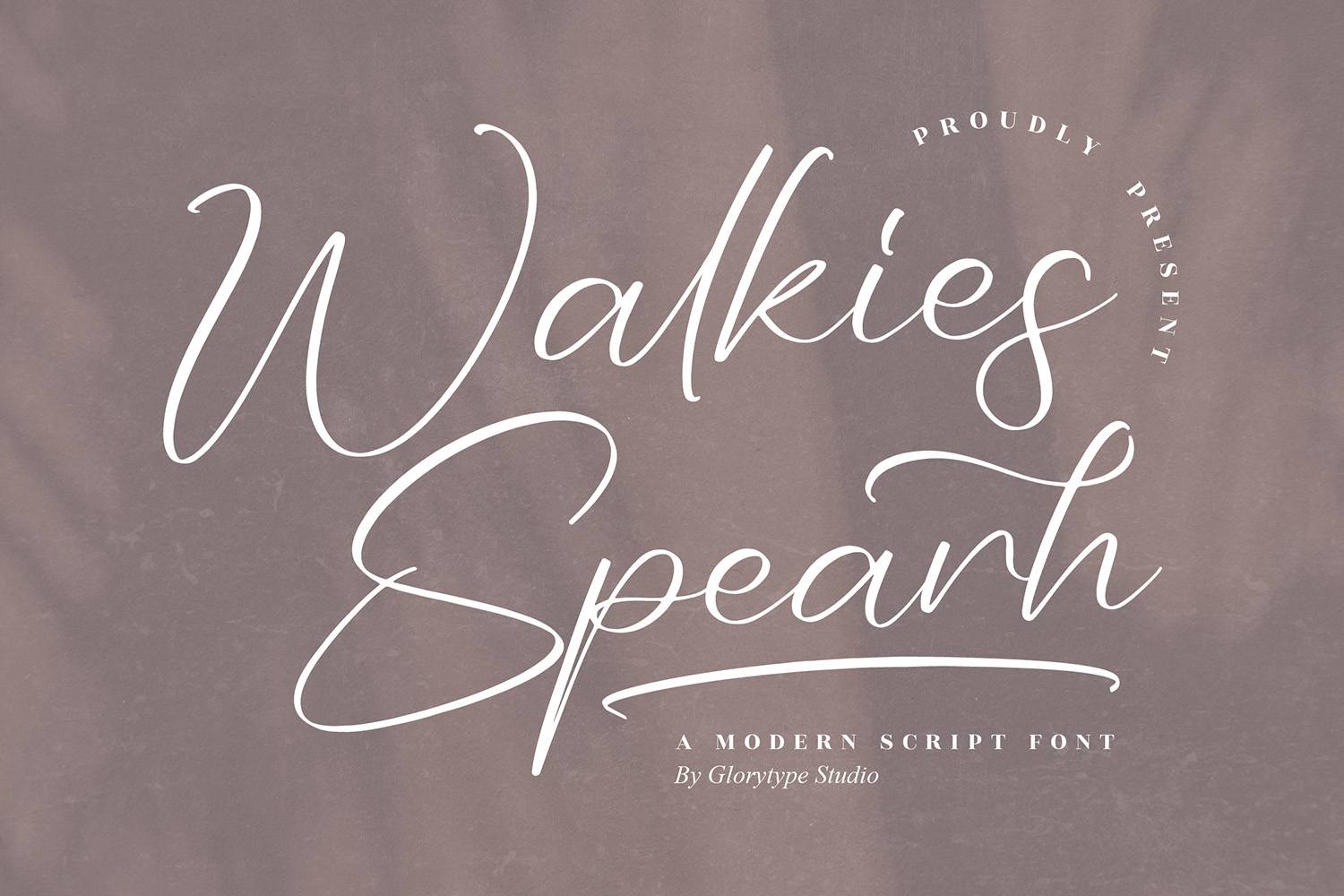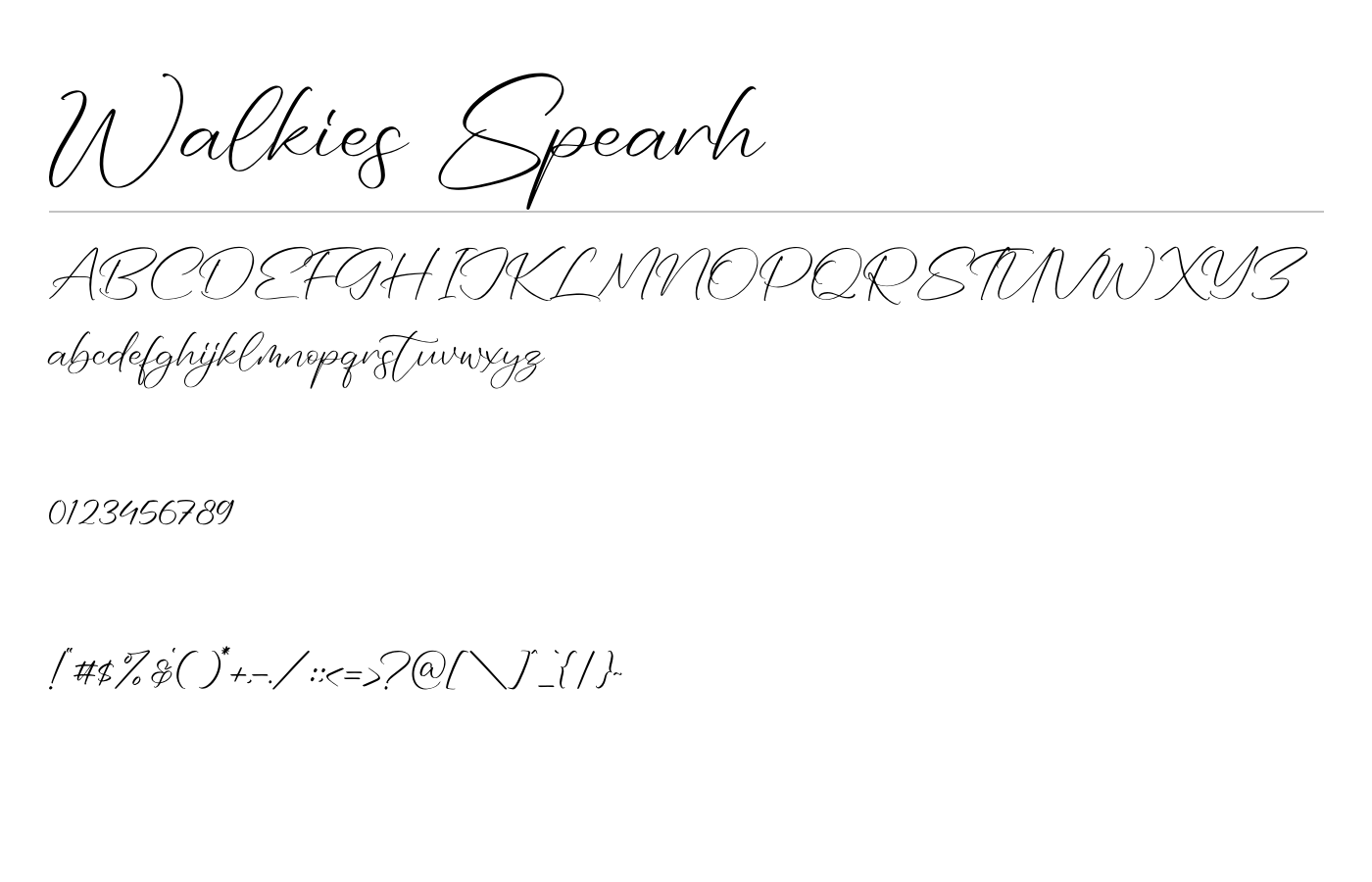
Walkies Spearh is a delicate, elegant script font characterized by its thin, flowing strokes and graceful curves. Its high, consistent x-height and slender letterforms give it a refined and airy feel, making it perfect for sophisticated branding, wedding invitations, and stylish editorial design. This font excels in projects that seek a modern, feminine touch with a handwritten charm.
Walkies Spearh Font
About Walkies Spearh Font